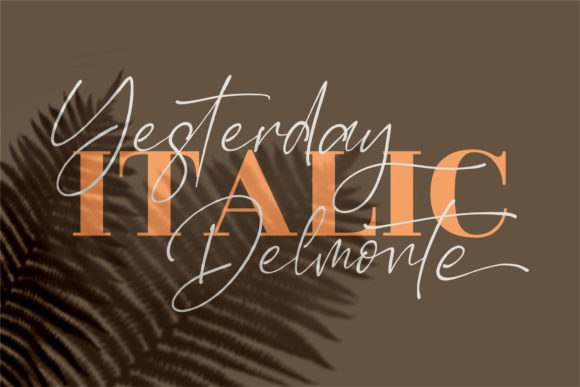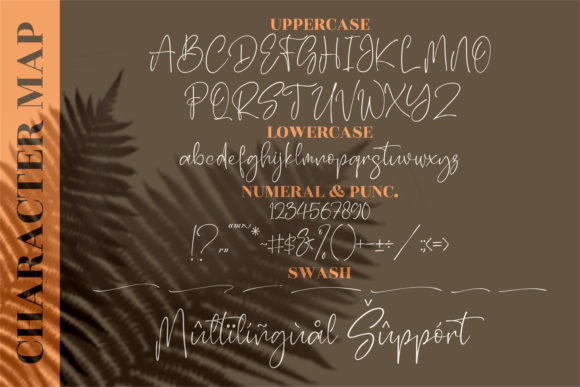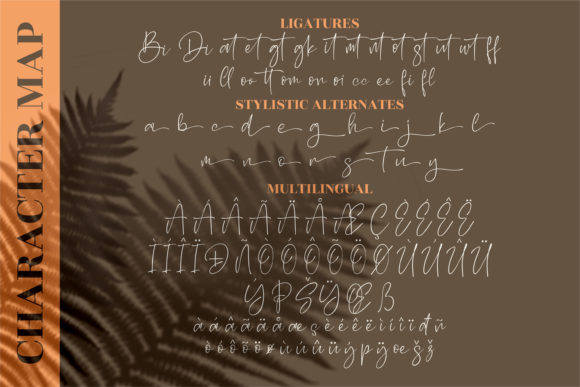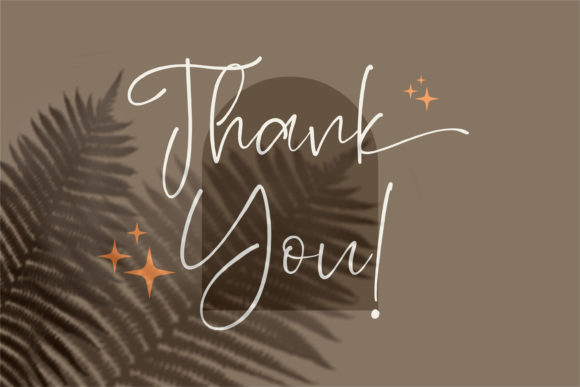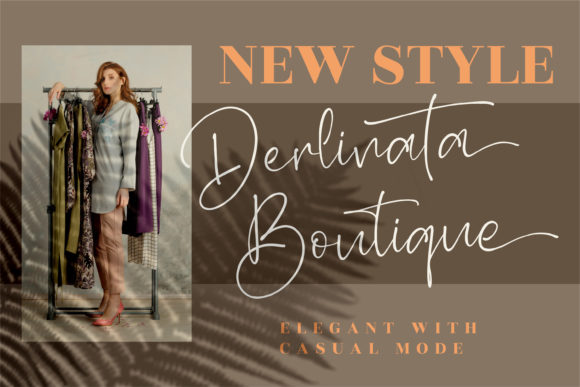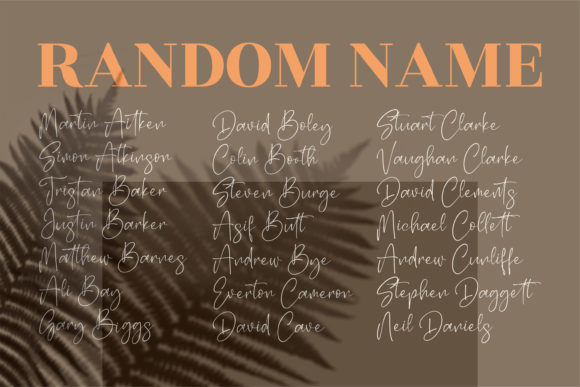
Yesterday Delmonte Font
About Yesterday Delmonte Font
Yesterday Delmonte is a thin lettered and graceful script font. Fall for its ravishing style and use it to create gorgeous designs! Yesterday Delmonte is PUA encoded which means you can access all glyphs and swashes with ease!